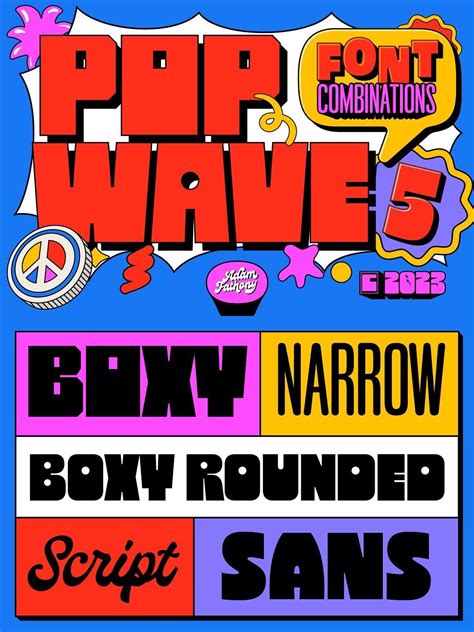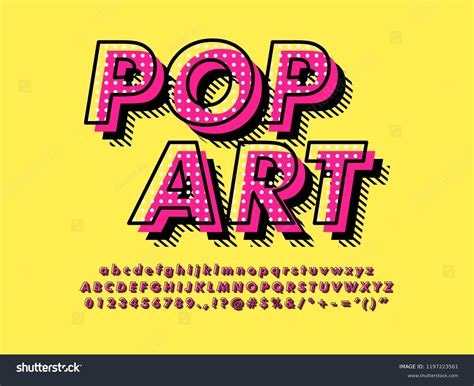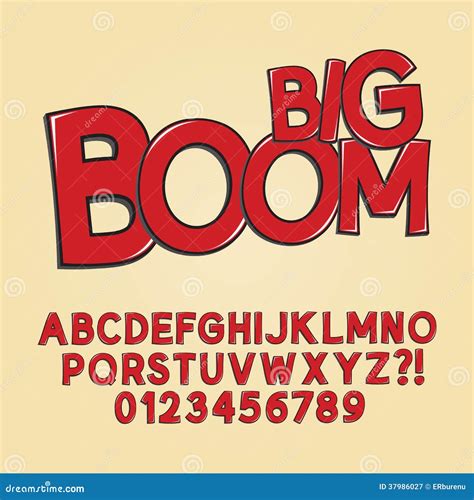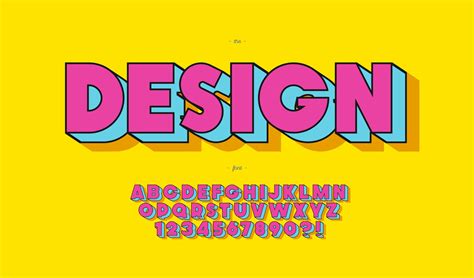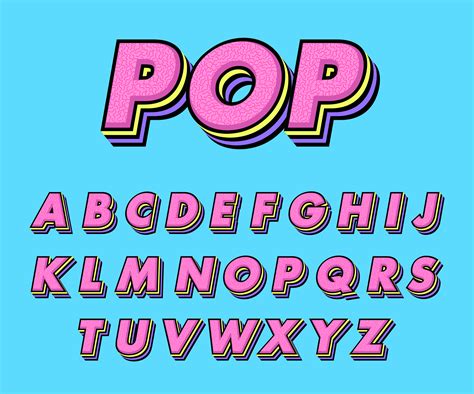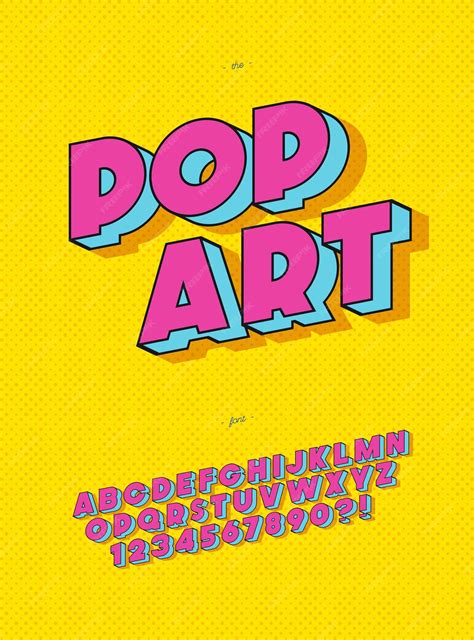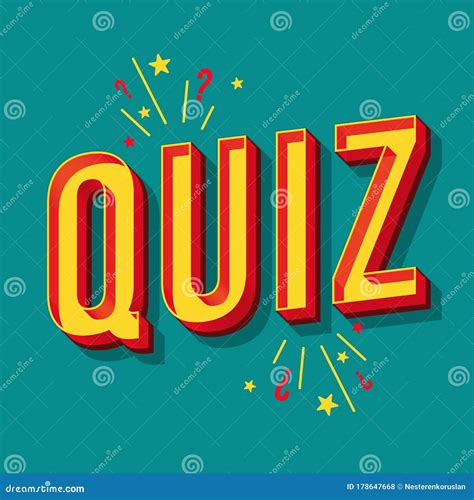
Pop Art, a vibrant and dynamic movement that emerged in the mid-20th century, has left an indelible mark on the world of art and design. One of the most enduring legacies of this movement is the Pop Art Font, which continues to inspire designers and artists alike. These fonts capture the essence of Pop Art with their bold, playful, and often whimsical characteristics, making them perfect for a wide range of creative projects.
Understanding Pop Art Fonts
Pop Art Fonts are characterized by their vibrant colors, bold outlines, and often exaggerated features. They draw inspiration from the iconic works of artists like Andy Warhol, Roy Lichtenstein, and Keith Haring, who used bold, graphic elements to create visually striking pieces. These fonts are not just about aesthetics; they also carry a sense of nostalgia and cultural significance, making them a popular choice for various design applications.
Key Characteristics of Pop Art Fonts
To fully appreciate Pop Art Fonts, it's essential to understand their key characteristics:
- Bold and Vibrant Colors: Pop Art Fonts often feature bright, eye-catching colors that demand attention.
- Exaggerated Features: These fonts frequently include exaggerated shapes and lines, adding a playful and dynamic element to the design.
- Graphic Elements: Pop Art Fonts often incorporate graphic elements like halftone dots, bold outlines, and comic-style effects.
- Playful and Whimsical: The fonts have a lighthearted and whimsical quality, making them perfect for fun and creative projects.
Popular Pop Art Fonts
There are numerous Pop Art Fonts available, each with its unique style and characteristics. Here are some of the most popular ones:
| Font Name | Description |
|---|---|
| Bubblegum Sans | A playful and bubbly font that captures the essence of Pop Art with its rounded shapes and vibrant colors. |
| Comic Sans | While not exclusively a Pop Art Font, Comic Sans has a playful and whimsical quality that makes it a popular choice for Pop Art-inspired designs. |
| Lobster | A bold and stylish font with a retro feel, perfect for headlines and logos. |
| Pacifico | A script font with a hand-drawn, playful style that adds a personal touch to designs. |
| Bebas Neue | A modern, bold font with clean lines and a strong presence, often used in graphic design and advertising. |
These fonts are just a few examples of the many Pop Art Fonts available. Each font has its unique style and can be used to create a wide range of designs, from retro-inspired posters to modern digital art.
Using Pop Art Fonts in Design
Pop Art Fonts are incredibly versatile and can be used in various design projects. Here are some tips on how to effectively use Pop Art Fonts in your designs:
- Choose the Right Font: Select a font that complements the overall style and theme of your project. For example, a bold and vibrant font like Bubblegum Sans might be perfect for a retro-inspired poster, while a more modern font like Bebas Neue could work well for a contemporary logo.
- Experiment with Colors: Pop Art Fonts are all about vibrant colors. Don't be afraid to experiment with different color combinations to create a visually striking design.
- Use Graphic Elements: Incorporate graphic elements like halftone dots, bold outlines, and comic-style effects to enhance the Pop Art aesthetic.
- Keep It Simple: While Pop Art Fonts are bold and eye-catching, it's essential to keep the overall design simple and uncluttered. Too many elements can overwhelm the viewer and detract from the message.
By following these tips, you can create stunning designs that capture the essence of Pop Art and make a lasting impression.
💡 Note: When using Pop Art Fonts, it's important to consider the readability of the text. While these fonts are visually appealing, they can sometimes be difficult to read, especially in smaller sizes. Always test your design at different sizes to ensure that the text remains legible.
Pop Art Fonts in Digital Media
In the digital age, Pop Art Fonts have found a new home in various forms of digital media. From social media graphics to website design, these fonts are used to create eye-catching and engaging content. Here are some ways Pop Art Fonts are utilized in digital media:
- Social Media Graphics: Pop Art Fonts are perfect for creating attention-grabbing social media posts. Their vibrant colors and bold designs make them stand out in a crowded newsfeed.
- Website Design: Incorporating Pop Art Fonts into website design can add a playful and dynamic element to the overall aesthetic. They are often used in headlines, buttons, and other key elements to create a visually appealing user experience.
- Digital Art: Pop Art Fonts are a popular choice for digital artists who want to create retro-inspired or nostalgic pieces. They can be used to create everything from digital paintings to animated graphics.